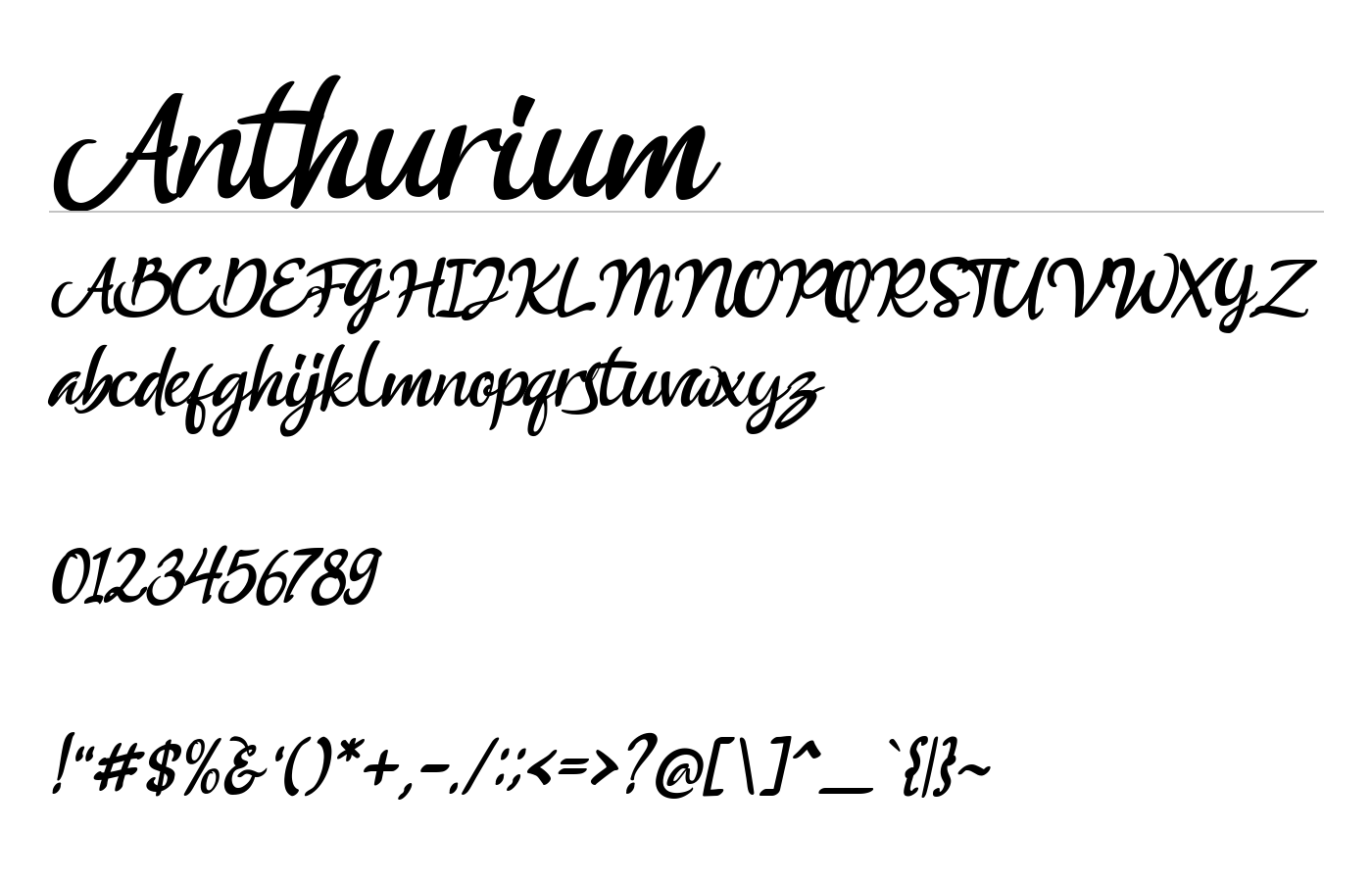
Anthurium is a fluid, elegant script font with a moderate weight and a slightly condensed width, featuring smooth, flowing strokes that mimic natural handwriting. Its stylish letterforms, including distinctive single-story 'a' and 'g,' make it perfect for adding a personal, sophisticated touch to branding, invitations, and headlines. This font works best where a graceful, refined, and approachable aesthetic is desired.
Anthurium Font
About Anthurium Font
| Font family | Anthurium Font |
| Designer | lemonthe.Dwi Ahidian |